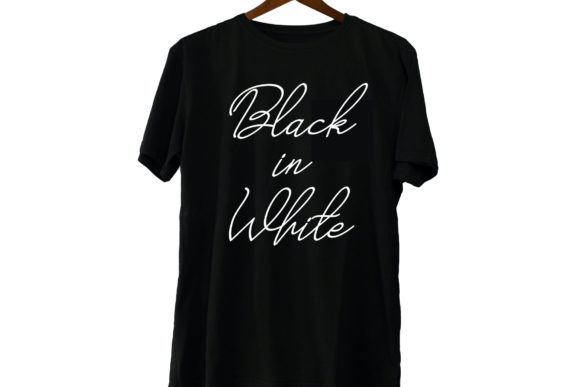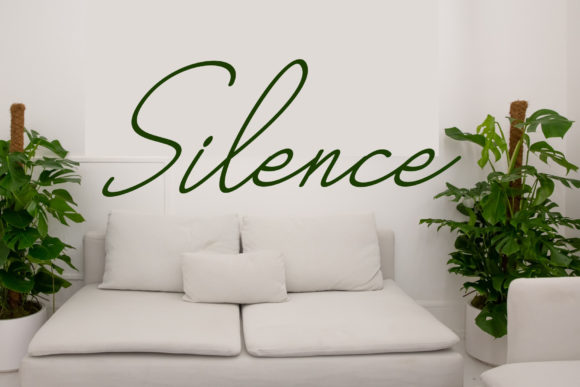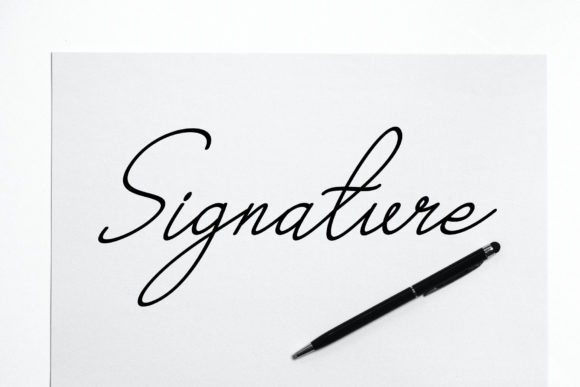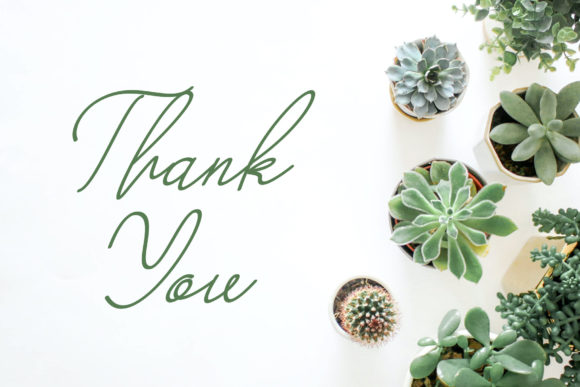
Introducing Dead Heart Font: The Epitome of Elegance and Sophistication
In the realm of typography, few fonts have managed to capture the essence of elegance and sophistication as effortlessly as the Dead Heart Font. This stunning, thin-lettered script font has been making waves in the design community, and for good reason. Its ravishing style and versatility have made it a go-to choice for designers and crafters looking to add a touch of luxury to their creations.
What Makes Dead Heart Font So Special?
Dead Heart Font is a masterclass in typographic design. Its slender lines and graceful curves evoke a sense of refinement and poise, making it perfect for projects that demand a high level of sophistication. Whether you’re looking to create gorgeous wedding invitations, beautiful stationery art, or eye-catching social media posts, this font is sure to impress.
Key Features of Dead Heart Font
- Thin Lettering: Dead Heart Font boasts a delicate, thin lettering style that exudes elegance and refinement.
- Graceful Script: The font’s script style is characterized by flowing curves and subtle connections, giving it a sense of fluidity and movement.
- Versatility: Dead Heart Font can be used for a wide range of projects, from wedding invitations and stationery to social media posts and branding materials.
- Ease of Use: The font is easy to read and works well in both digital and print formats, making it a versatile choice for designers and crafters.
Creative Applications of Dead Heart Font
So, what can you create with Dead Heart Font? The possibilities are endless! Here are a few ideas to get you started:
- Wedding Invitations: Create stunning wedding invitations that set the tone for a luxurious and unforgettable celebration.
- Stationery Art: Design beautiful stationery art, including greeting cards, thank-you cards, and letterheads.
- Social Media Posts: Elevate your social media game with eye-catching posts that showcase your brand’s personality and style.
- Branding Materials: Use Dead Heart Font to create professional branding materials, including logos, business cards, and brochures.
Tips for Working with Dead Heart Font
To get the most out of Dead Heart Font, here are a few tips to keep in mind:
- Pair it with Bold Fonts: Combine Dead Heart Font with bold, contrasting fonts to create visual interest and hierarchy.
- Experiment with Colors: Play around with different color schemes to find the perfect combination that complements your design.
- Pay Attention to Spacing: Make sure to adjust the spacing between letters and words to ensure optimal readability.
In conclusion, Dead Heart Font is a game-changer for designers and crafters looking to add a touch of elegance and sophistication to their creations. Its thin lettering, graceful script, and versatility make it a valuable addition to any design toolkit. Whether you’re working on a wedding invitation, social media post, or branding material, this font is sure to impress. So why wait? Fall for the ravishing style of Dead Heart Font and take your designs to the next level!